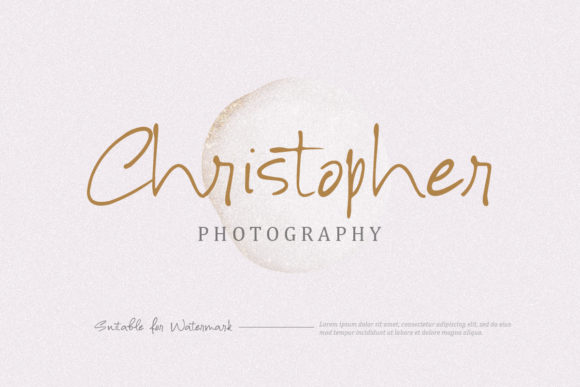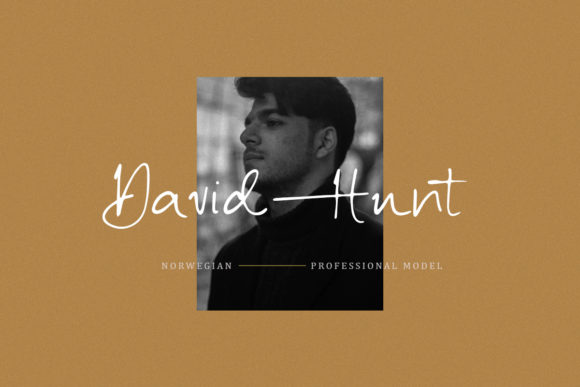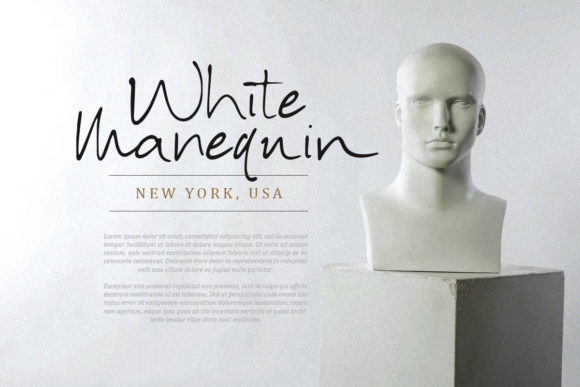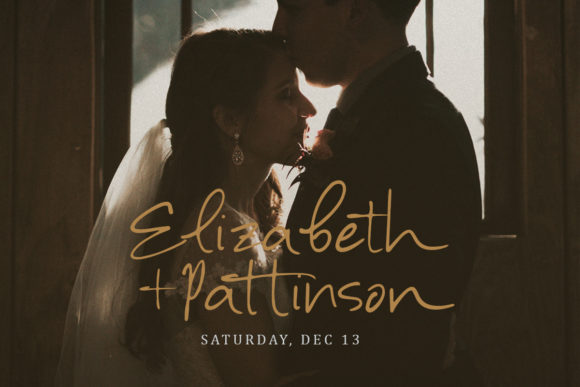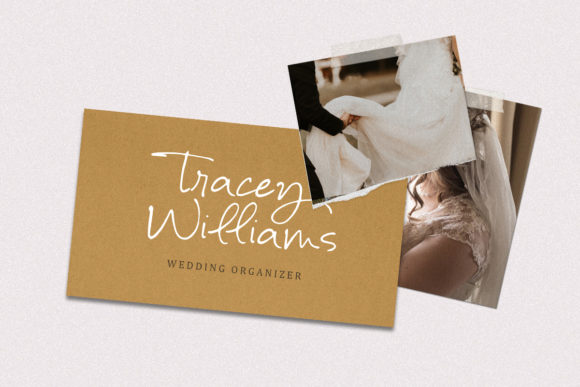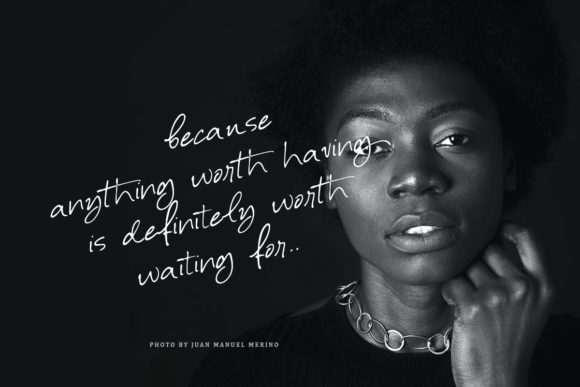
Introducing Alessia Harvey Font: Elevate Your Designs with Elegance
Are you a designer or crafter looking for a font that exudes elegance and sophistication? Look no further than Alessia Harvey Font. This beautiful, handwritten font is perfect for adding a touch of refinement to your projects. In this article, we’ll dive into the features and benefits of Alessia Harvey Font, and explore how it can elevate your designs.
A Delicate and Elegant Font
Alessia Harvey Font is a delicate, elegant, and flowing handwritten font that is sure to capture your attention. Its beautiful and well-balanced characters make it an excellent choice for a wide range of designs, from wedding invitations and branding materials to packaging and digital media. The font’s flowing lines and curves create a sense of movement and fluidity, adding a touch of sophistication to any project.
Key Features of Alessia Harvey Font
• Beautiful and well-balanced characters: Each character in Alessia Harvey Font is carefully crafted to ensure that it looks great on its own and in combination with other characters.
• Elegant and flowing lines: The font’s flowing lines and curves create a sense of movement and fluidity, adding a touch of sophistication to any project.
• Versatile: Alessia Harvey Font matches a wide pool of designs, making it an excellent choice for a variety of projects.
• Handwritten: The font’s handwritten style adds a personal touch to any project, making it perfect for designs that require a more human feel.
Benefits of Using Alessia Harvey Font
So, why choose Alessia Harvey Font for your designs? Here are just a few benefits of using this beautiful font:
• Adds elegance and sophistication: Alessia Harvey Font is the perfect choice for designers who want to add a touch of elegance and sophistication to their projects.
• Increases versatility: The font’s versatility makes it an excellent choice for a wide range of designs, from wedding invitations and branding materials to packaging and digital media.
• Enhances creativity: Alessia Harvey Font’s unique and flowing lines can inspire creativity and help you think outside the box.
• Easy to read: Despite its elegant and flowing lines, Alessia Harvey Font is easy to read, making it perfect for designs that require a clear and concise message.
How to Use Alessia Harvey Font
Using Alessia Harvey Font is easy. Here are a few tips to get you started:
• Pair it with bold fonts: Pair Alessia Harvey Font with bold fonts to create a striking contrast and add visual interest to your designs.
• Use it for headings and titles: Alessia Harvey Font is perfect for headings and titles, where its elegant and flowing lines can add a touch of sophistication.
• Experiment with colors: Alessia Harvey Font looks great in a variety of colors, so don’t be afraid to experiment and find the perfect color for your design.
Alessia Harvey Font is a beautiful, elegant, and flowing handwritten font that is perfect for designers and crafters who want to add a touch of sophistication to their projects. Its well-balanced characters, elegant lines, and versatility make it an excellent choice for a wide range of designs. Whether you’re creating wedding invitations, branding materials, packaging, or digital media, Alessia Harvey Font is sure to elevate your designs and inspire creativity.